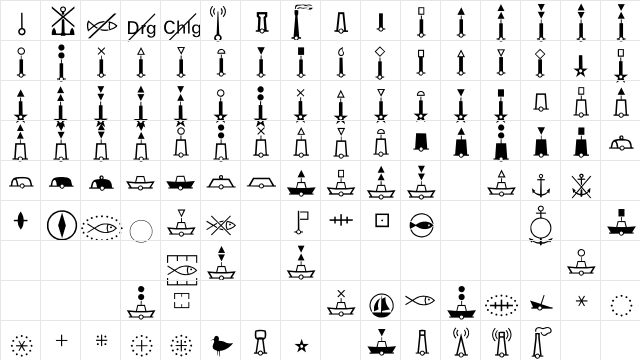
Sy1Ca Regular
Design Context for Sy1Ca Typeface
Sy1Ca is a composed and adaptable typeface that performs quietly and consistently across a wide range of design contexts.